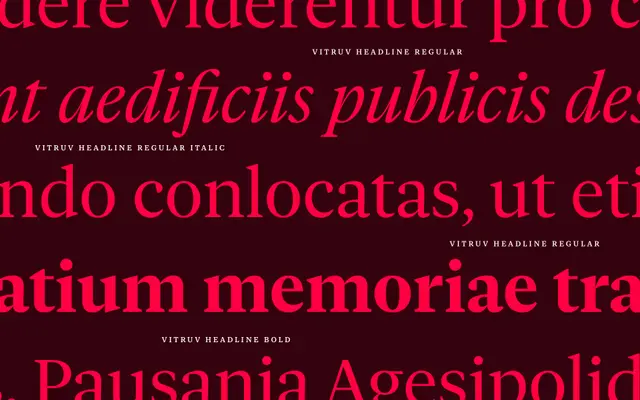
Vitruv Headline
A classically inspired headline serif from René Bieder, part of a three-family optical size system spanning poster, headline and text cuts.
Vitruv Headline sits in the middle tier of a Roman-themed type system that includes Vitruv Poster and Vitruv Text, each optimised for different size ranges. The family runs across six weights from Thin to Black, all with matching italics, giving twelve styles in total. The naming of individual styles after figures and concepts of antiquity — Augustus, Alexandria, Romanum — reinforces the classical framing of the design.
The Roman-themed naming conventions and headline orientation suggest a classical serif with transitional proportions, designed for display use at larger sizes within a three-part optical size system.